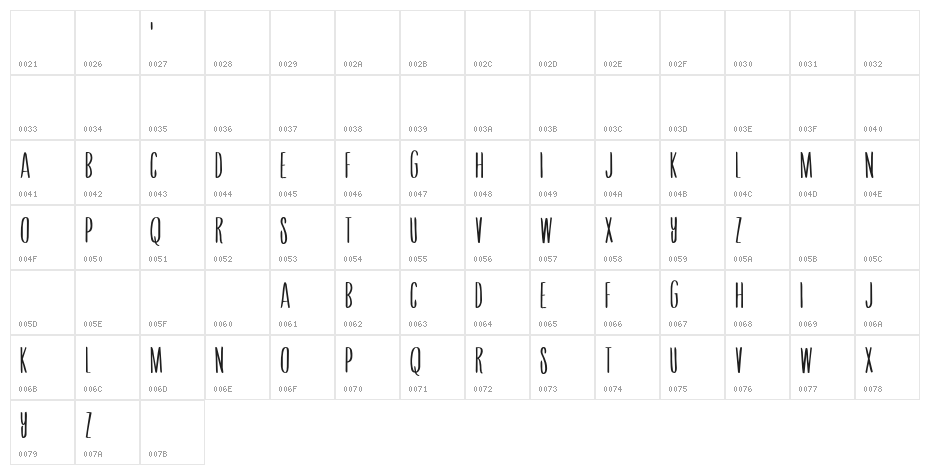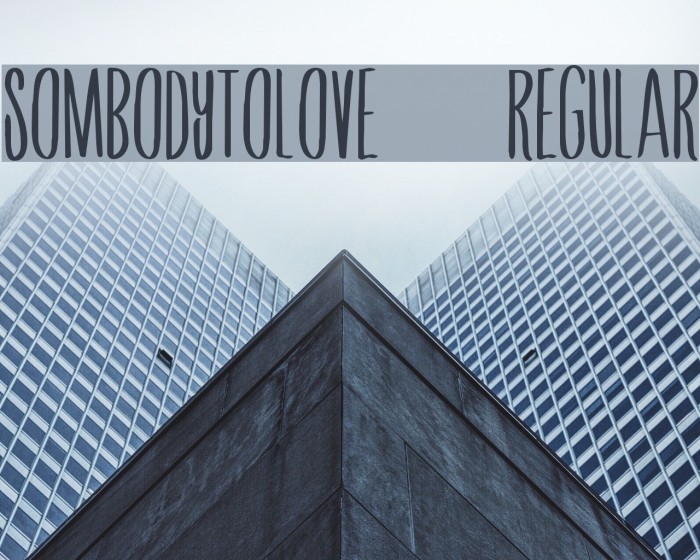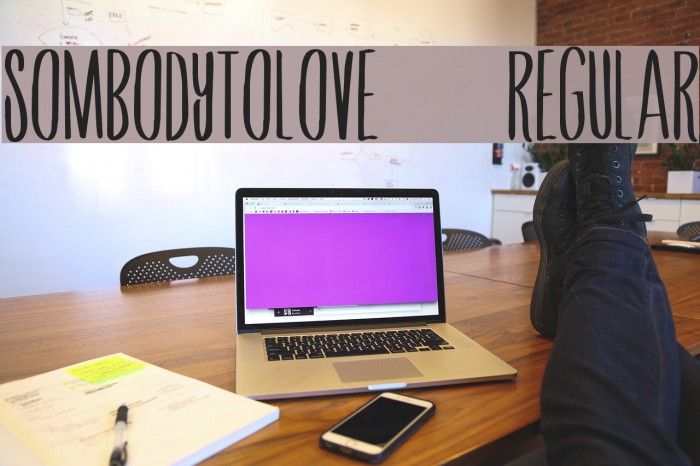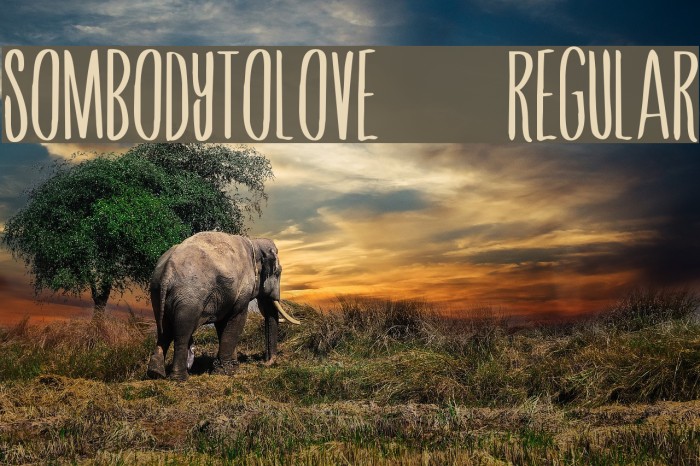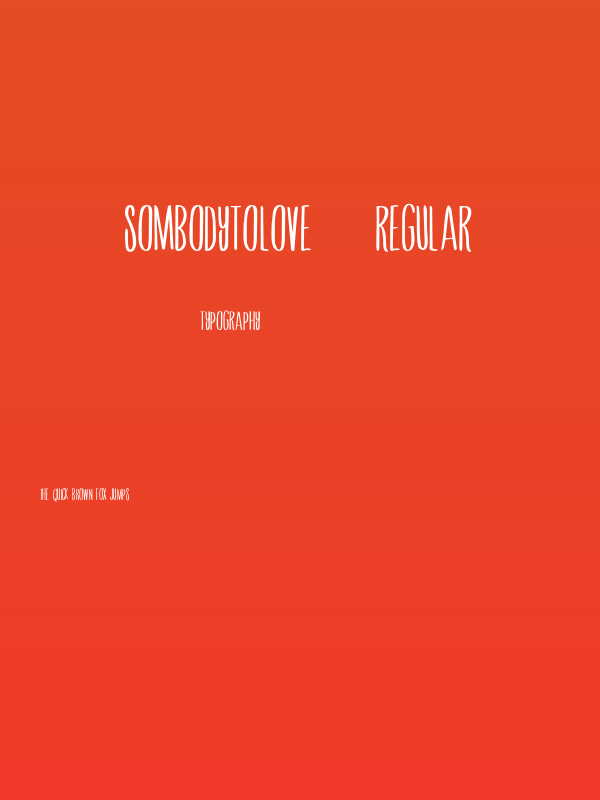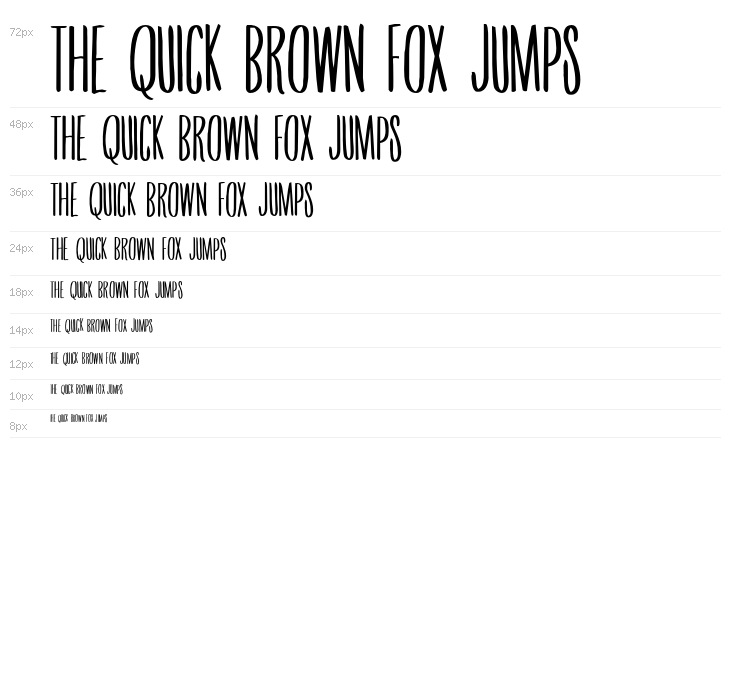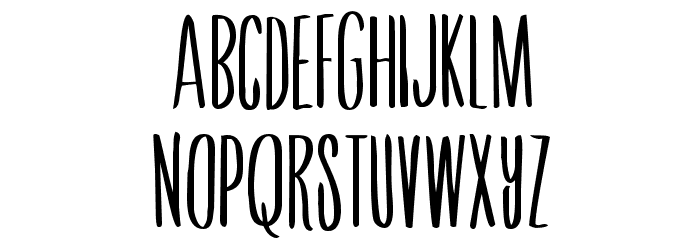
SombodyToLove-Regular Font
SombodyToLove-Regular Description
This font features a playful and whimsical design, characterized by tall, narrow letters with a slight slant, giving it a dynamic and lively appearance. The strokes are smooth and consistent, with rounded edges that add a friendly and approachable feel. The uppercase letters are particularly elongated, creating a sense of elegance and sophistication. The lowercase letters maintain the same playful style, with a slightly more compact form. This font is well-suited for projects that require a touch of creativity and fun, such as children's books, greeting cards, or playful branding materials.
| Proposed Projects | Children's books, greeting cards, playful branding materials. |